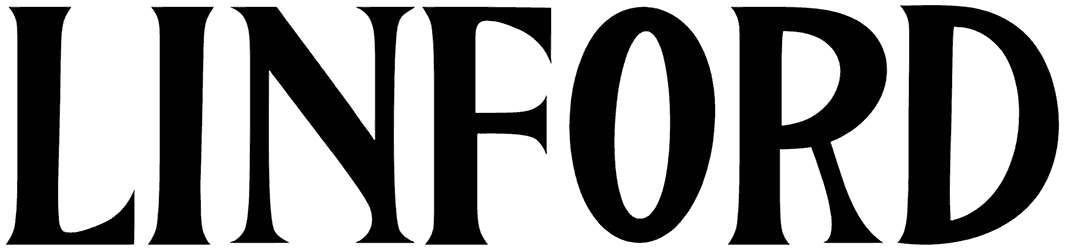
Linford Font
If you need a fancy and vintage look for your texts, this classic font is ideal for you. Linford is a font with a classic look and an engraved Western design. Its characters carry a slight groove on them and have a serif makeover.
It will be a good choice for formal headlines, and you can also use it for posters, retro signs, or book titles. This font is perfect if you are in need of an intense nostalgic feeling.